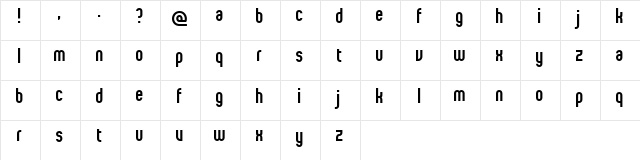
proletarian (beta) Regular
Design Context for proletarian (beta) Typeface
proletarian (beta) offers clean, dependable letterforms without strong stylistic allegiance, making it a practical choice for designers who need flexibility.